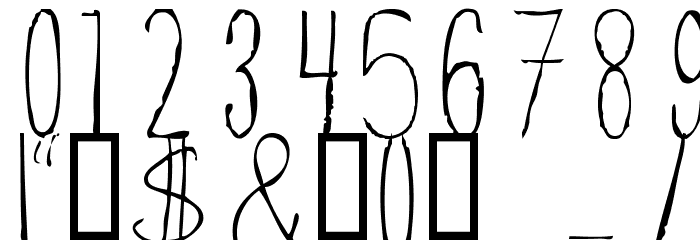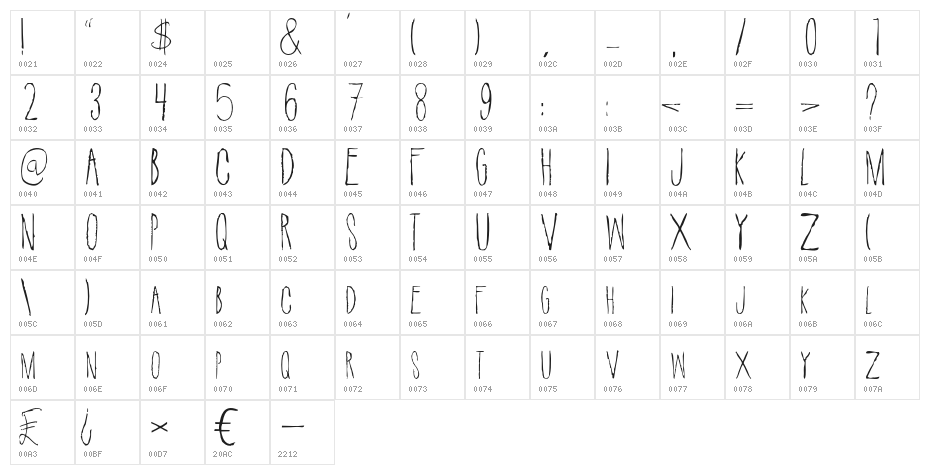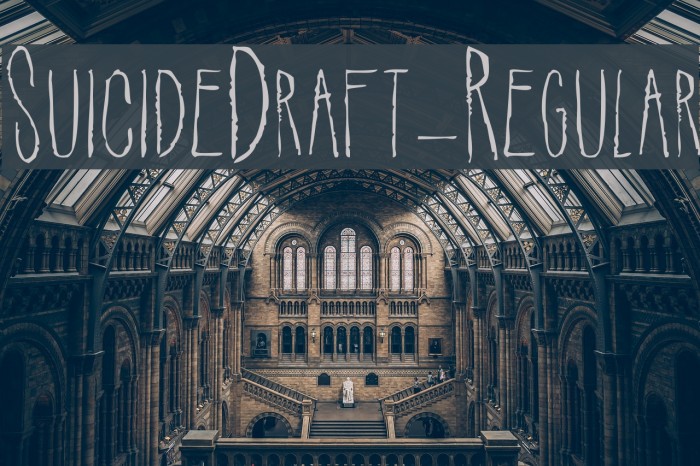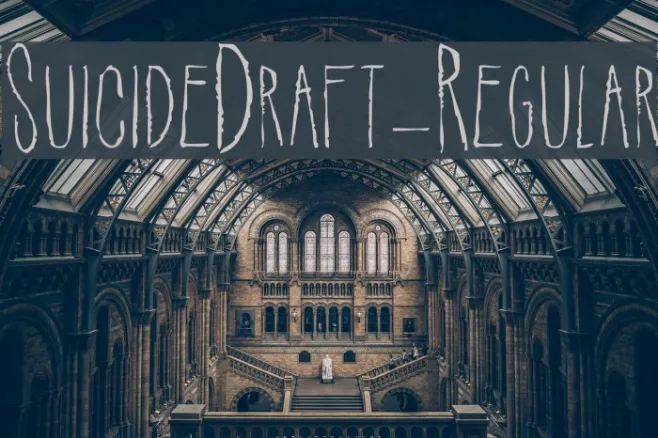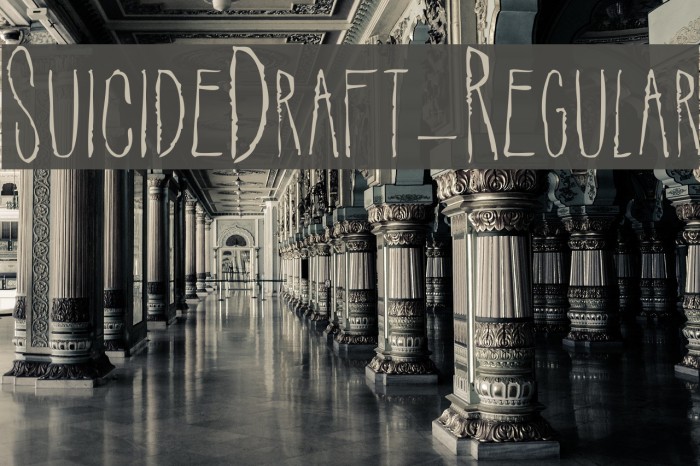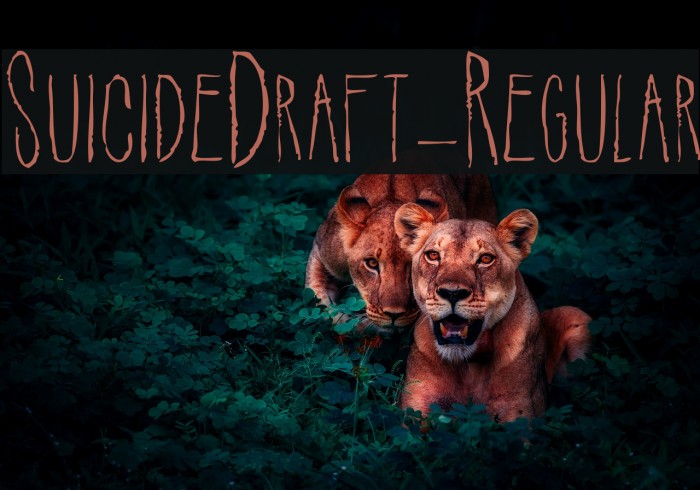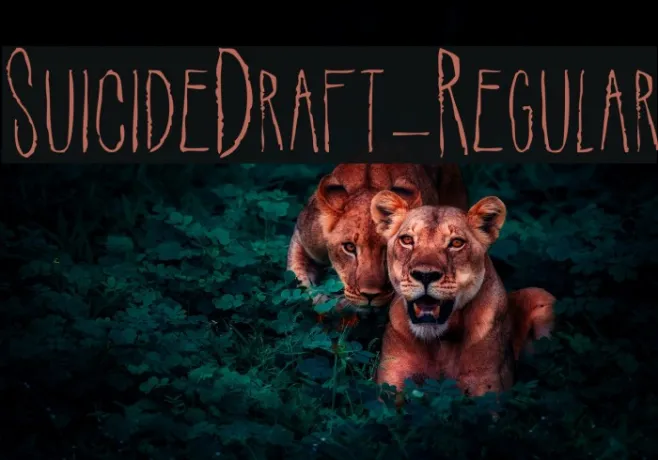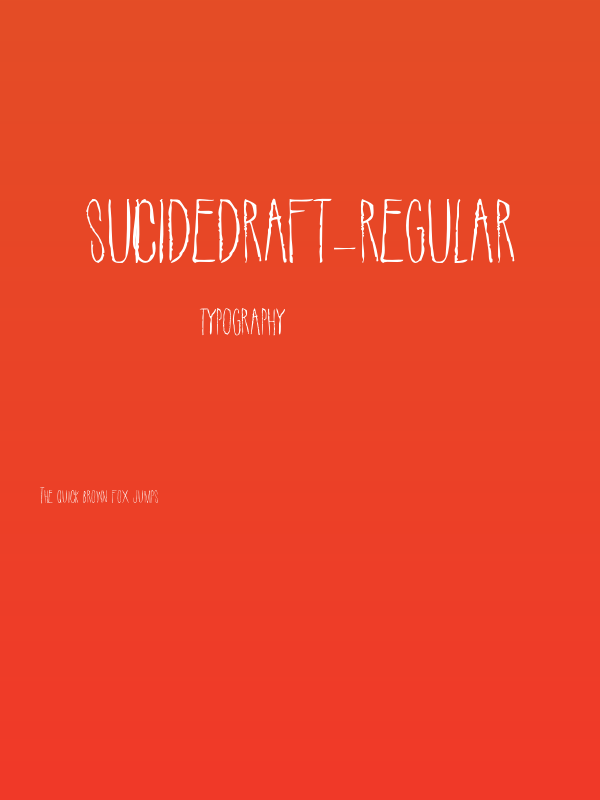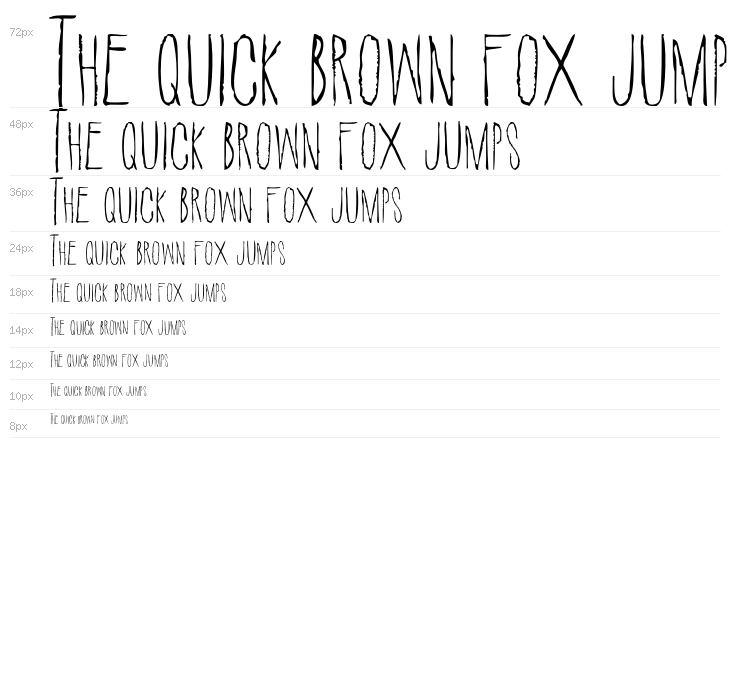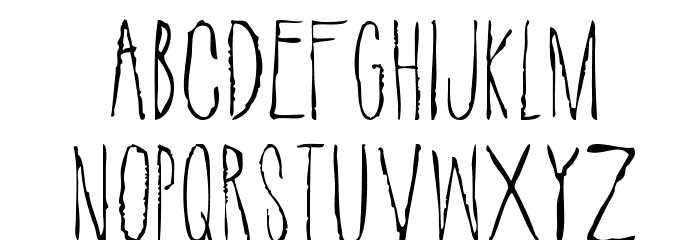
SuicideDraft-Regular Font
SuicideDraft-Regular Description
This font features a distressed and grungy aesthetic, characterized by uneven strokes and a hand-drawn appearance. The uppercase and lowercase letters exhibit a raw, edgy style with irregular lines, giving it a unique, artistic flair. The numerals and special characters maintain this rugged look, adding to the overall theme of imperfection and individuality. The font's design is reminiscent of urban street art or graffiti, making it suitable for projects that require a bold and unconventional visual statement.
| Overall Style | Grunge, Artistic, Urban |
| Use Case | Logos, Posters, Album covers |
| Proposed Projects | Ideal for album covers, posters, streetwear branding, and edgy graphic designs. |